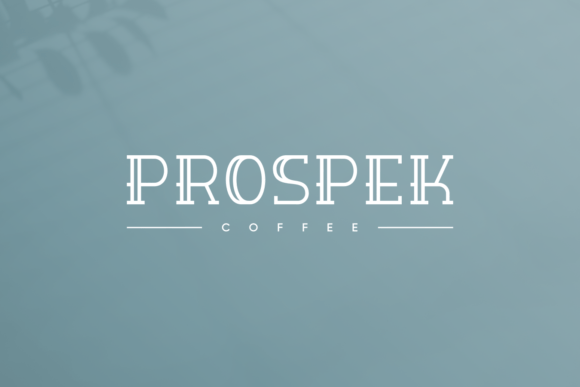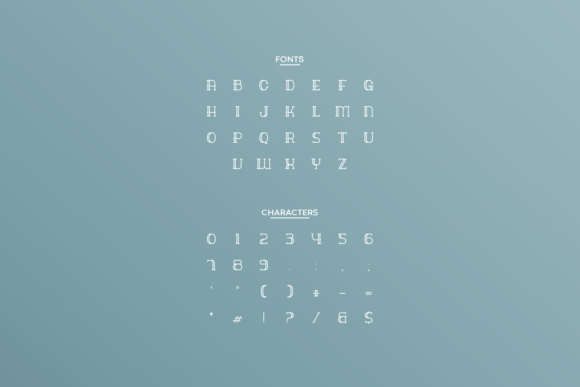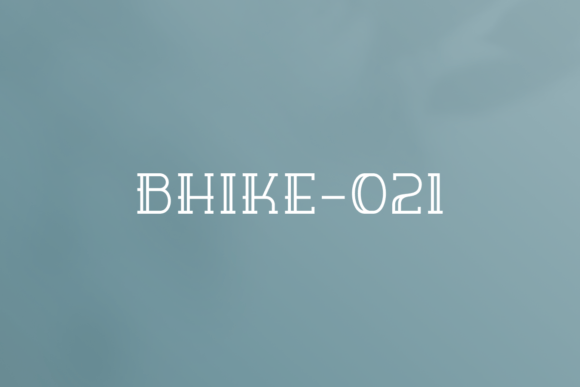
Introduction to Libekre Font
Libekre is a serif display font that brings back old style with a modern look.
With thin and clean dimensions, it looks timeless, elegant, and very classy This font would be suitable for jewelery package designs, titles, logos and more.
Key Features of Libekre Font